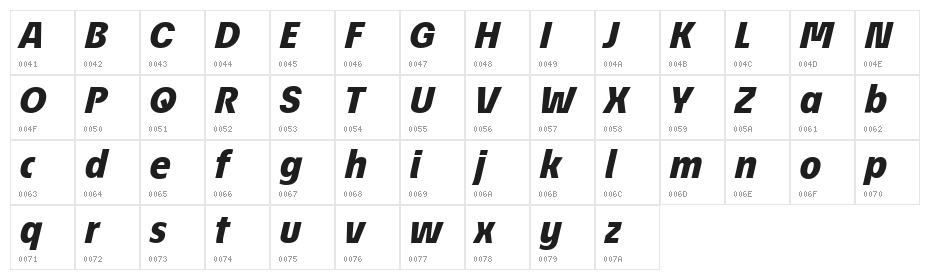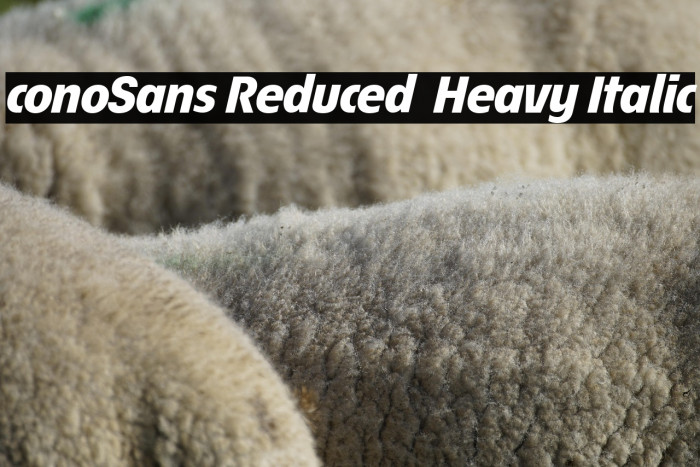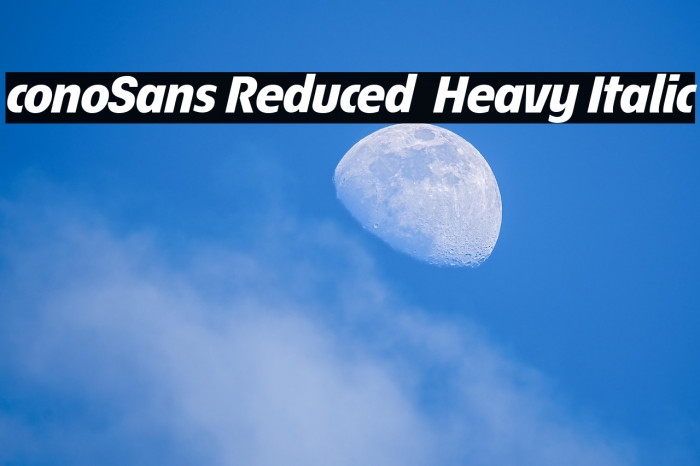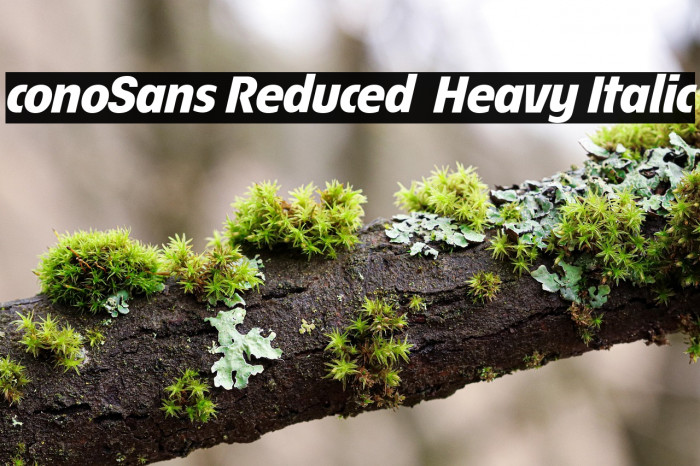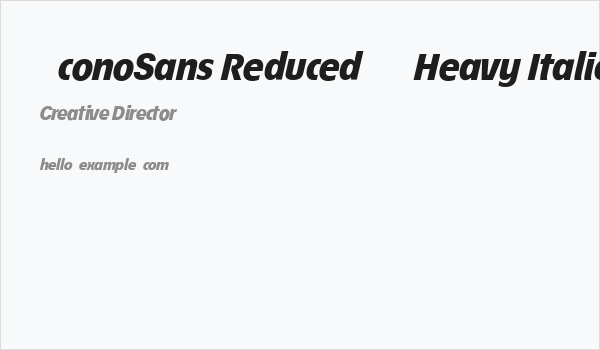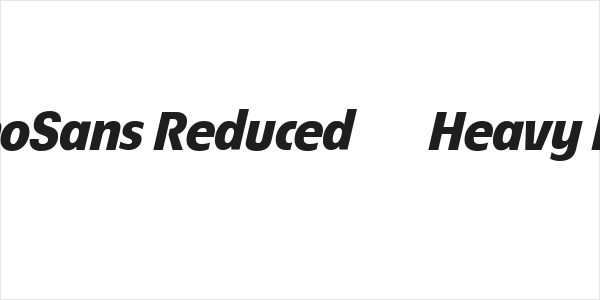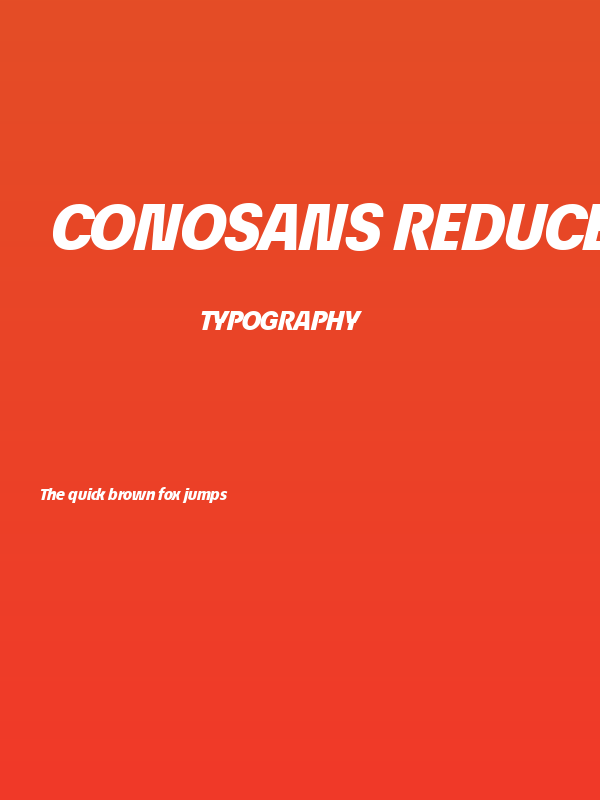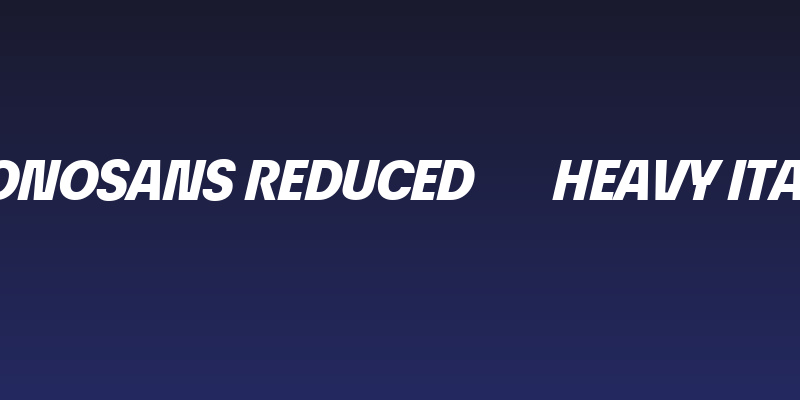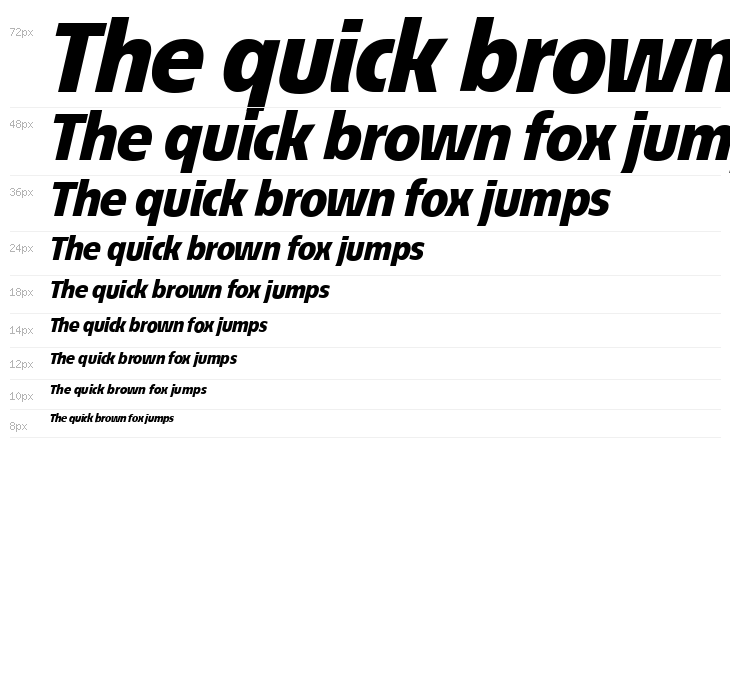
ÉconoSans Reduced 86 Heavy Italic Font
ÉconoSans Reduced 86 Heavy Italic Description
This font exhibits a bold and dynamic style with a strong italic slant, giving it a sense of motion and energy. The characters are robust and heavy, making them stand out prominently. The strokes are thick and consistent, providing a solid and impactful appearance. The design is modern and sleek, suitable for making bold statements. The uppercase and lowercase letters maintain a uniform weight, ensuring readability and balance. The font's distinctive style is enhanced by its heavy weight and italicized form, making it ideal for attention-grabbing headlines and logos.
| Proposed Projects | Ideal for branding, advertising, headlines, and any design requiring a strong visual impact. |